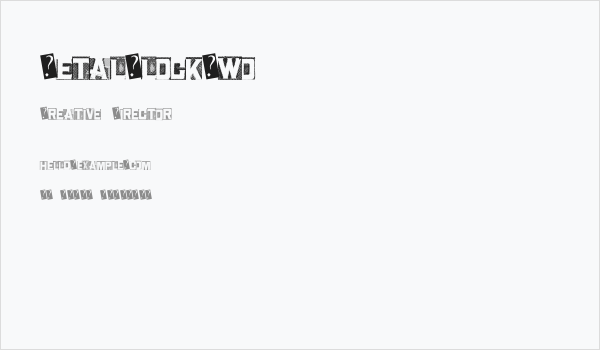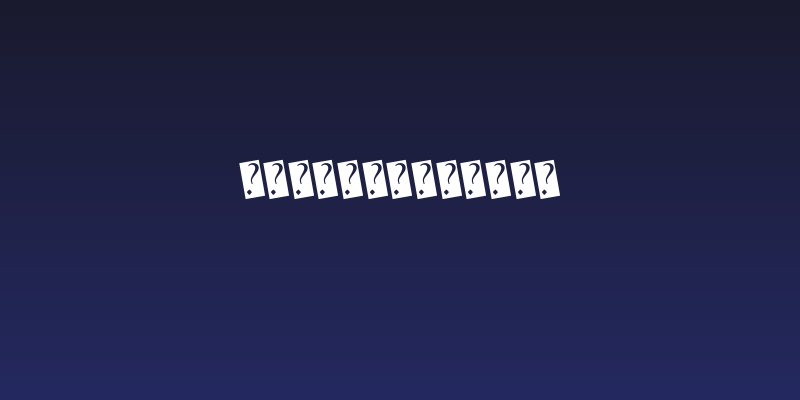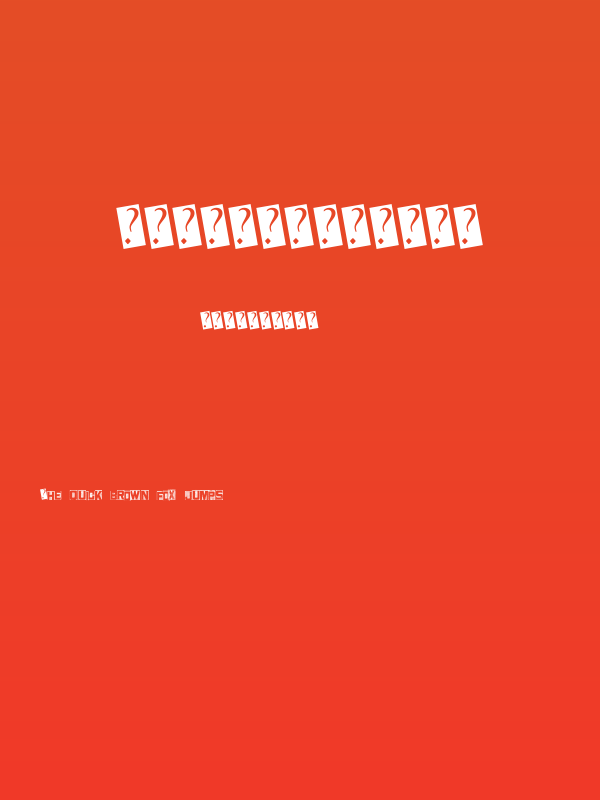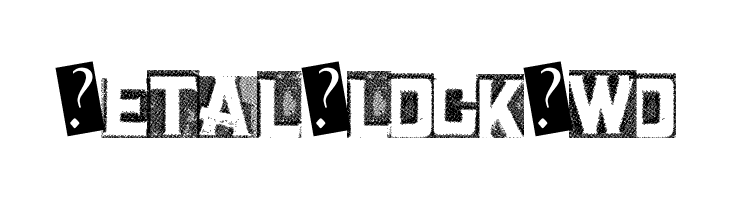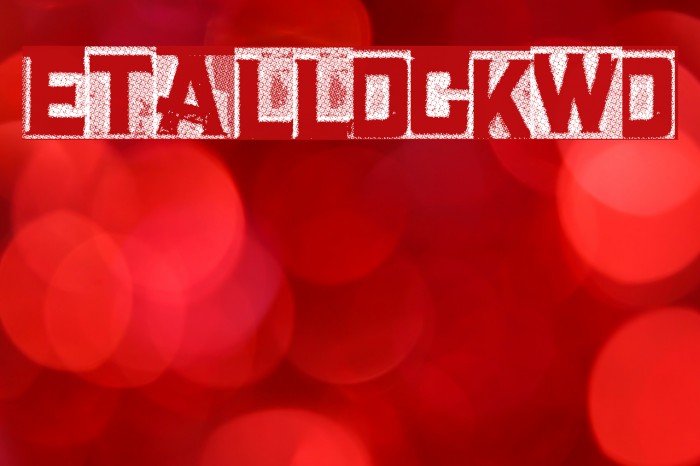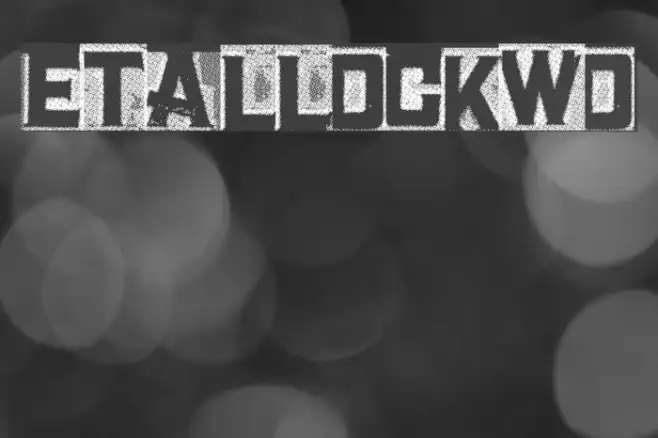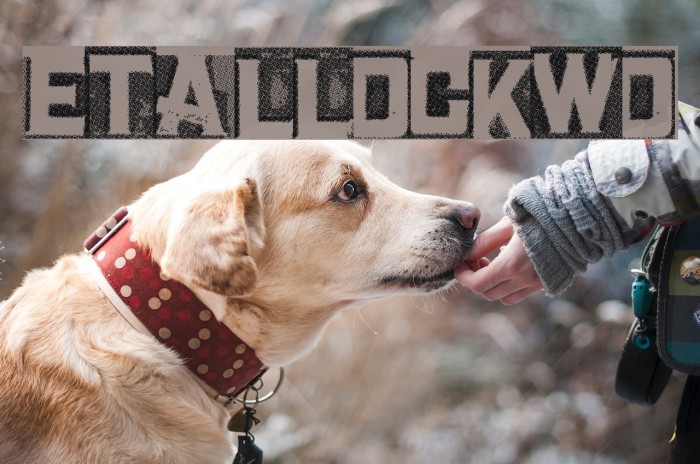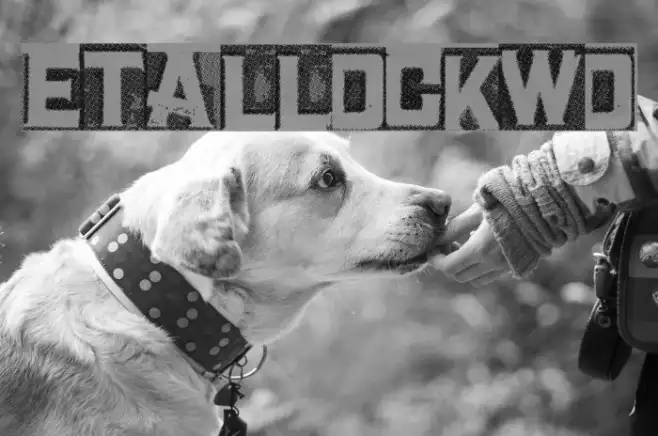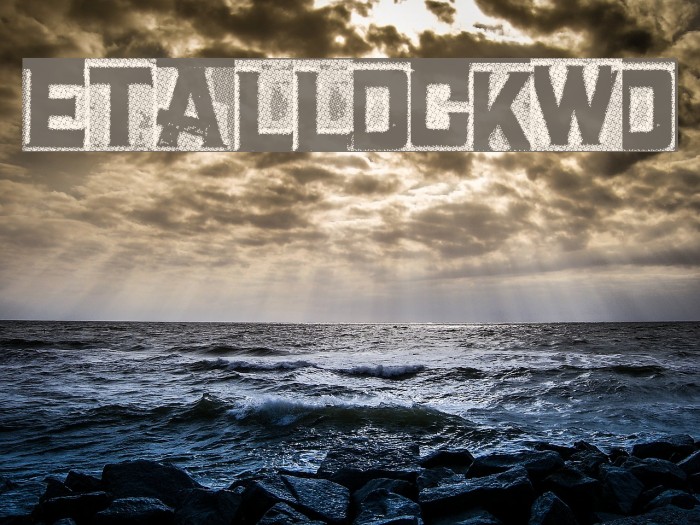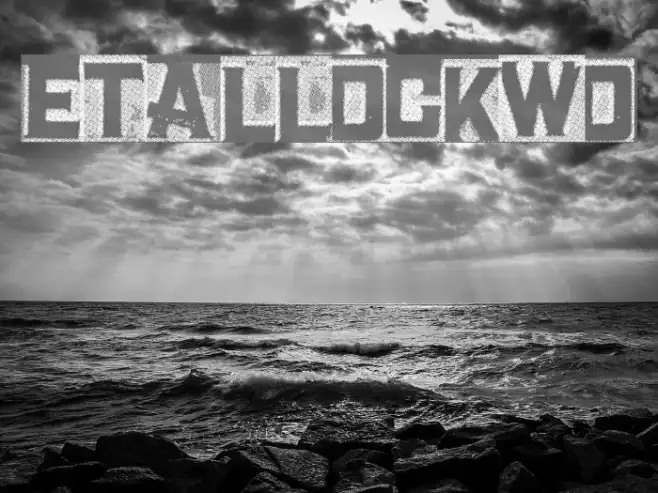
MetalBlockTwo Font
MetalBlockTwo Description
This font features a bold, industrial style with a distressed texture, giving it a rugged and vintage appearance. The uppercase letters are blocky and geometric, with a uniform height that creates a strong visual impact. The distressed effect adds character and a sense of history, making it suitable for designs that require a retro or grunge aesthetic. The font's boldness ensures readability, while the unique texture provides an eye-catching element that stands out in various design contexts.
| Proposed Projects | Ideal for posters, album covers, branding for vintage or industrial-themed products, and any design requiring a bold, eye-catching typeface. |